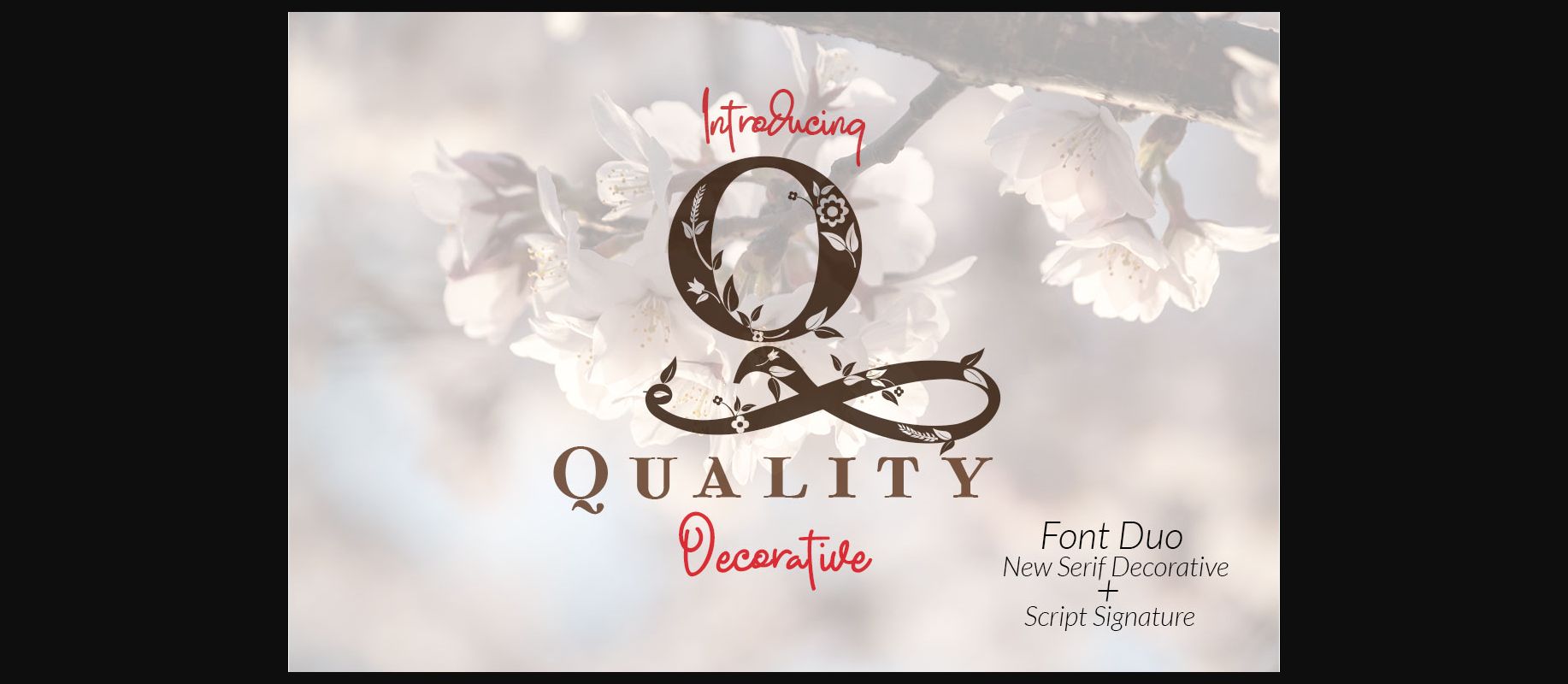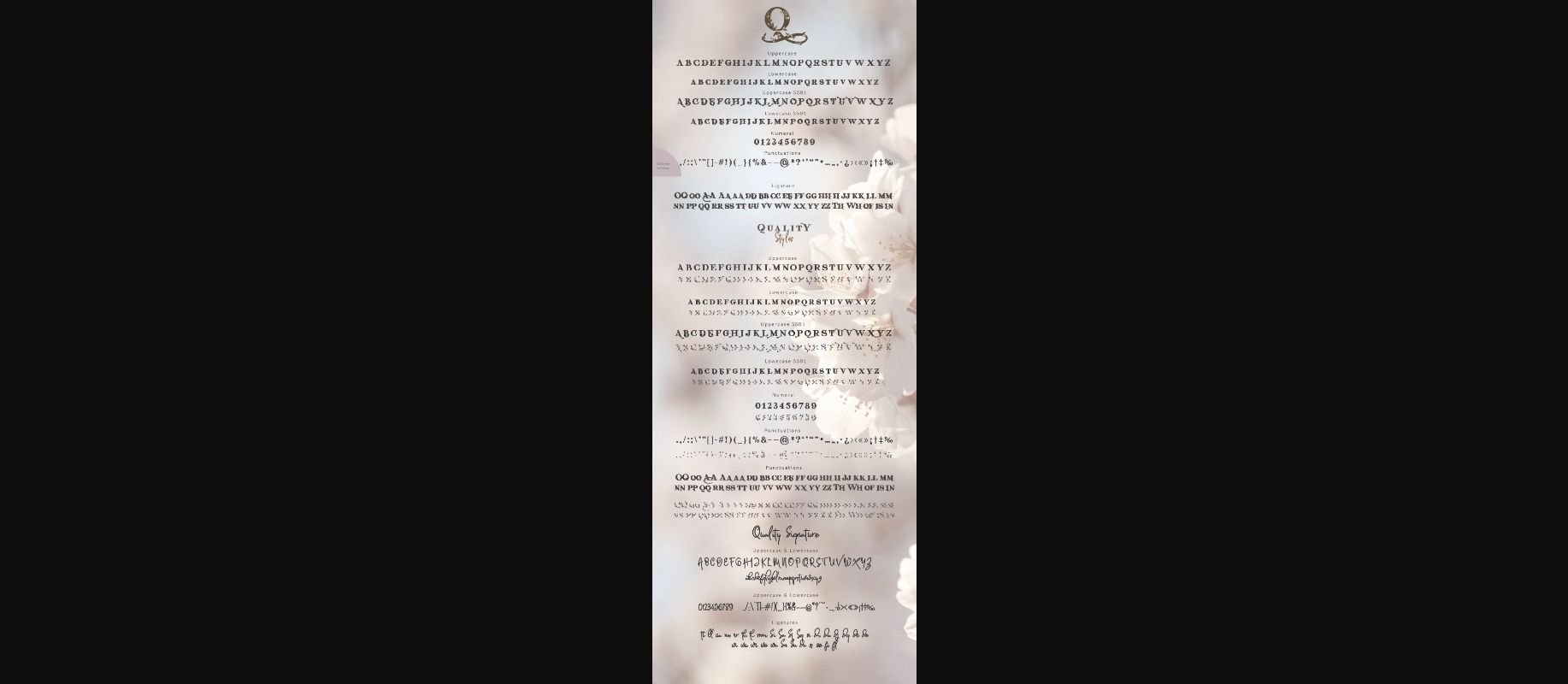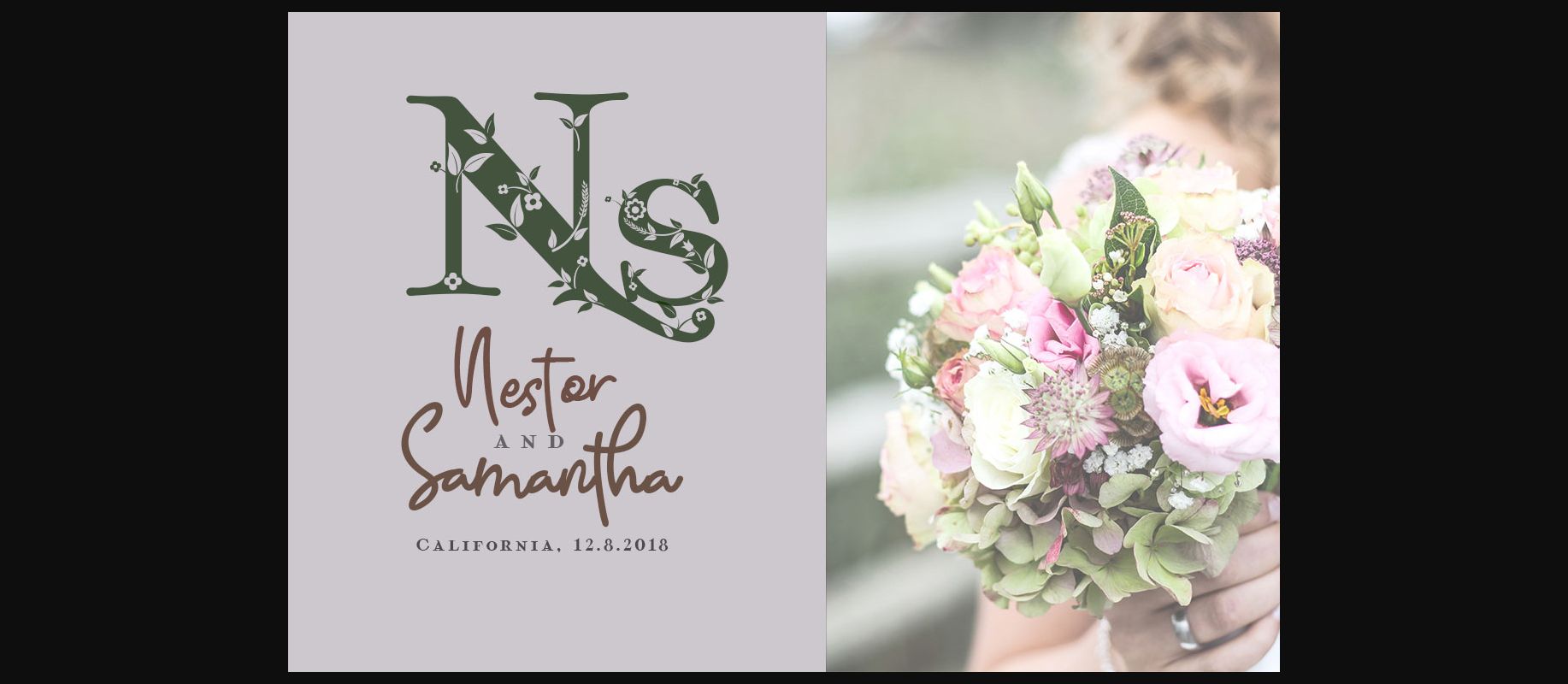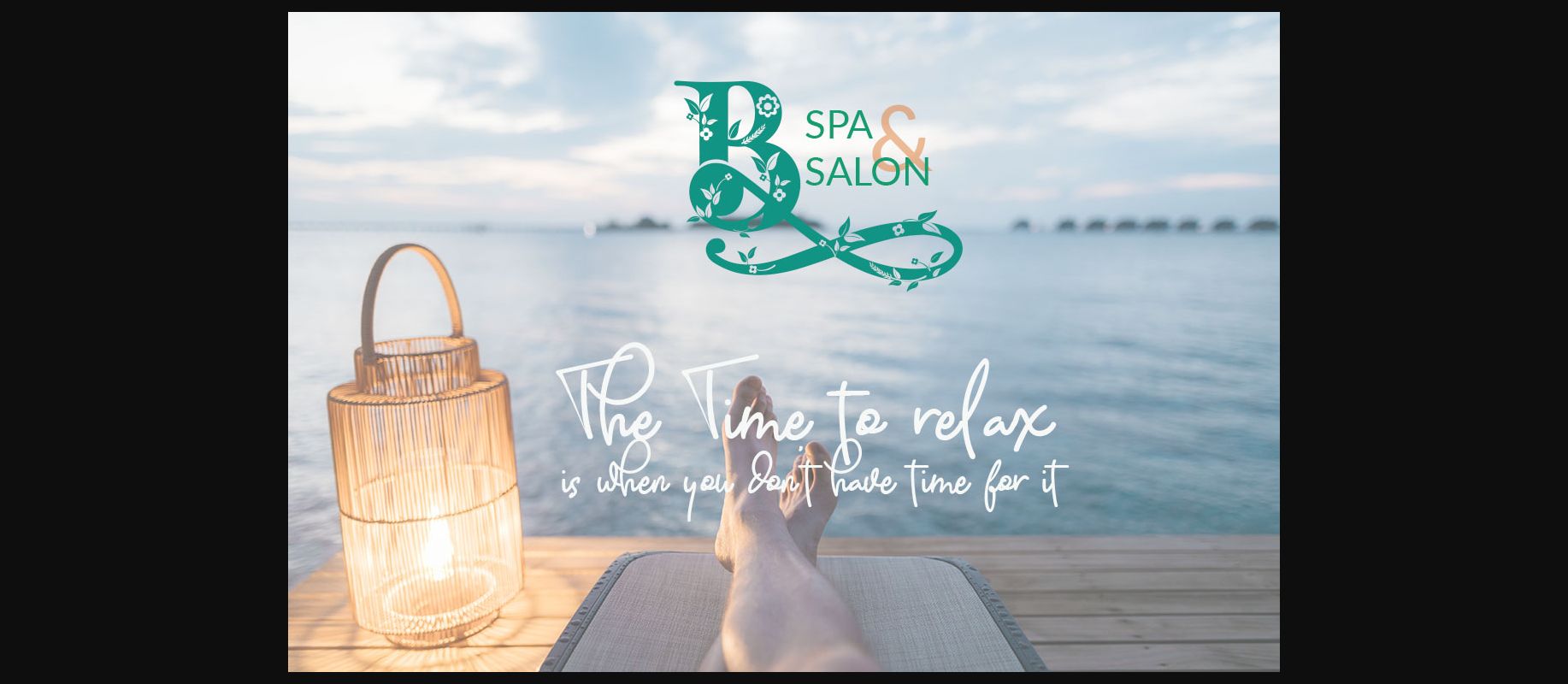
About Quality Font
Quality is a beautiful, jaw-dropping font family that will give your designs a unique and compelling look! This decorative font comes in plenty of styles for customizable designs, and ushers in a very Springy vibe.